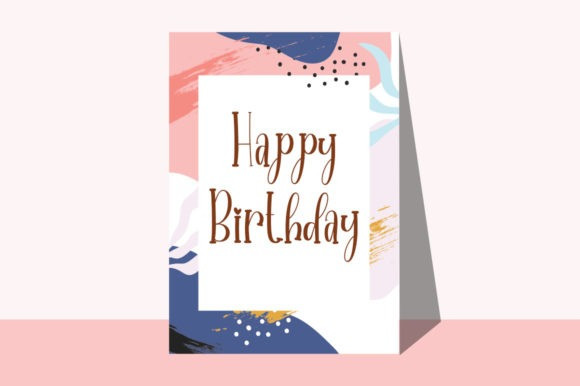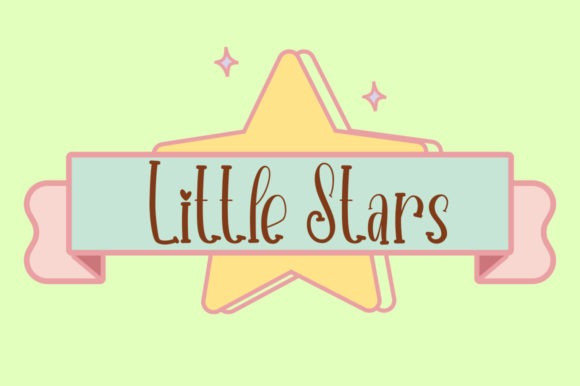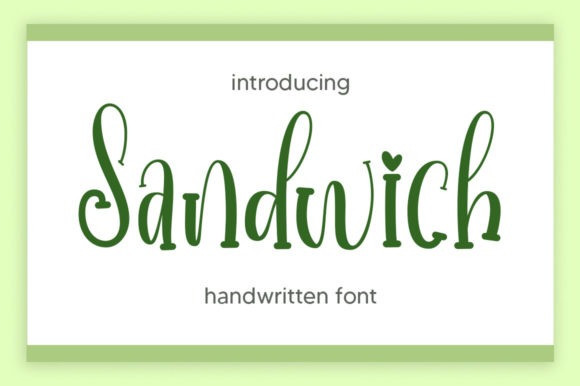
Sandwich Font
Sandwich Font, is a quirky and playful serif font. It can be used for various purposes such as logos, headings, t-shirts, letterheads, signage, labels, news, posters, badges and so much more.